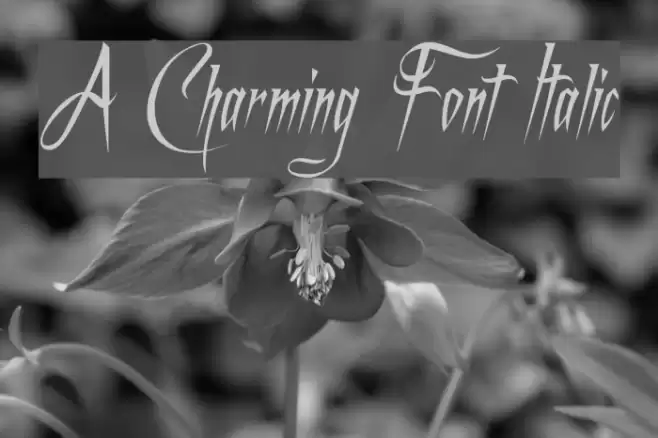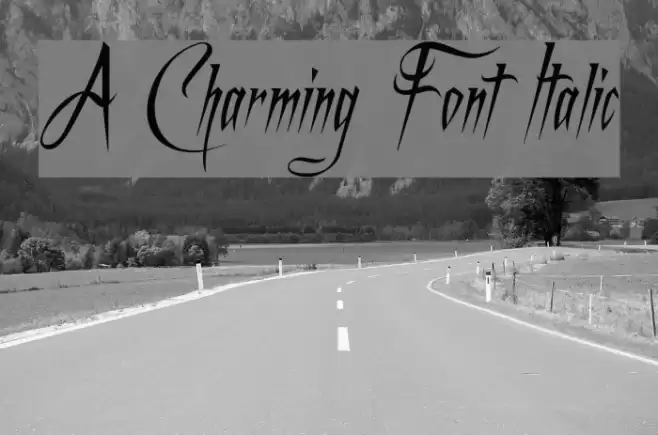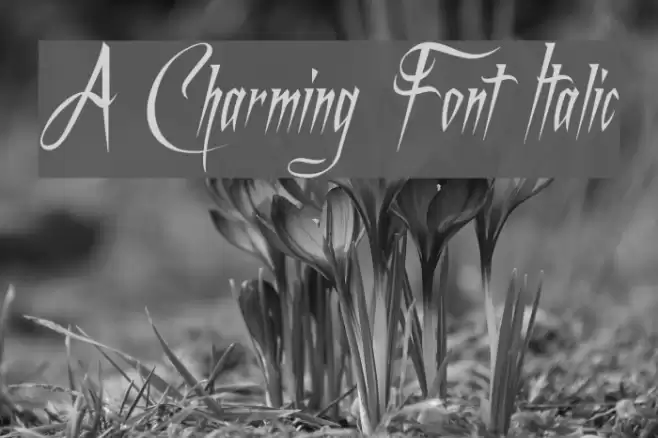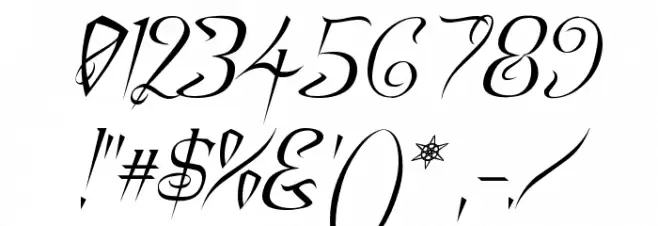
A Charming Font Italic Font
A Charming Font Italic Description
This font exudes a whimsical and artistic flair, characterized by its flowing, cursive-like strokes and elegant, elongated letterforms. The uppercase letters are particularly ornate, with intricate loops and swirls that give a sense of movement and grace. The lowercase letters maintain a consistent style, offering a harmonious balance between readability and decorative appeal. Numbers and special characters are equally stylized, ensuring a cohesive look across all text elements. The overall design is both sophisticated and playful, making it suitable for creative and expressive projects.
An artistic and whimsical font with flowing, cursive-like strokes and elegant letterforms from Antiques fonts.
- Proposed Projects: Ideal for wedding invitations, greeting cards, artistic posters, and branding materials that require a touch of elegance and creativity.
- Use Case: Headlines, Logos, Invitations